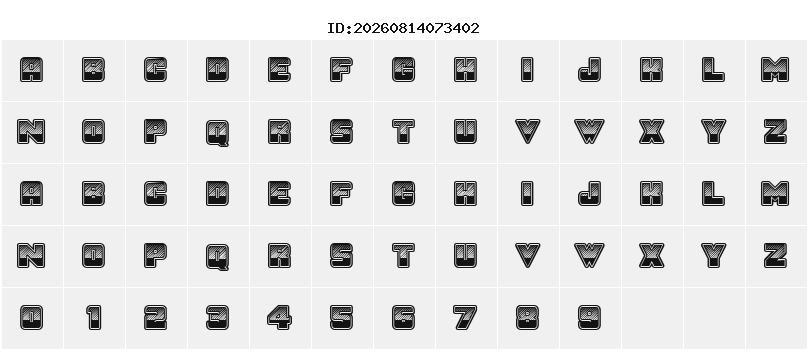
• Font Name: Sunset GP
• Full Font Name: Sunset GP
• Version: Version 1.00 November 27, 2011, initial release
About Sunset GP.ttf
Sunset GP.ttf is a modern, elegant sans-serif font designed for ultimate readability and visual harmony. Perfect for branding, headlines, web design, and print materials.